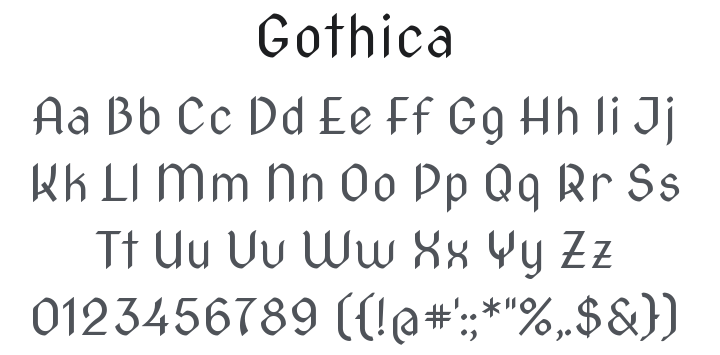
Gothica Font Family
About Gothica
This is my old font which was a base for "Nova Cut" and all the "Nova" fonts family. The first, simplified version of "Gothica" was published in the book " Free Font Index 3" by Hans Lijklema. Glyphs in this release are different, exactly the same as I use for my stone carving works. Celtica with Gothica and Classica are a small set of my inspirations from oldest latin inscriptions.